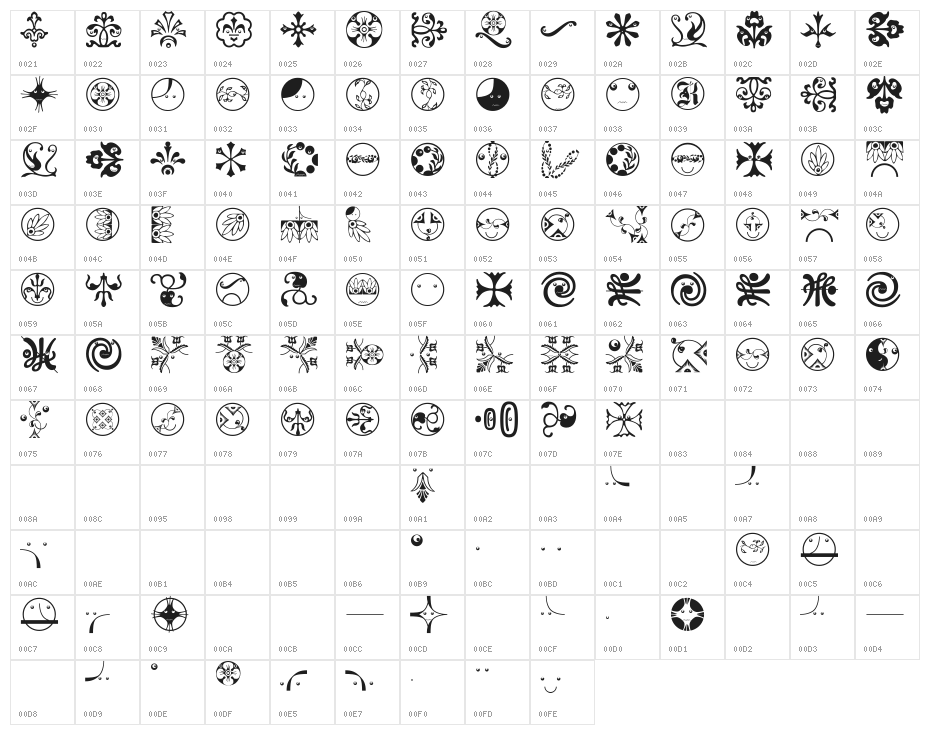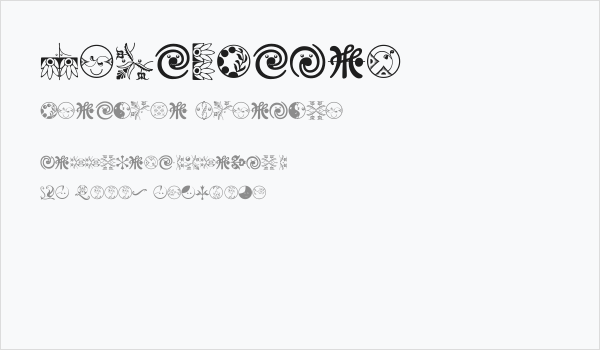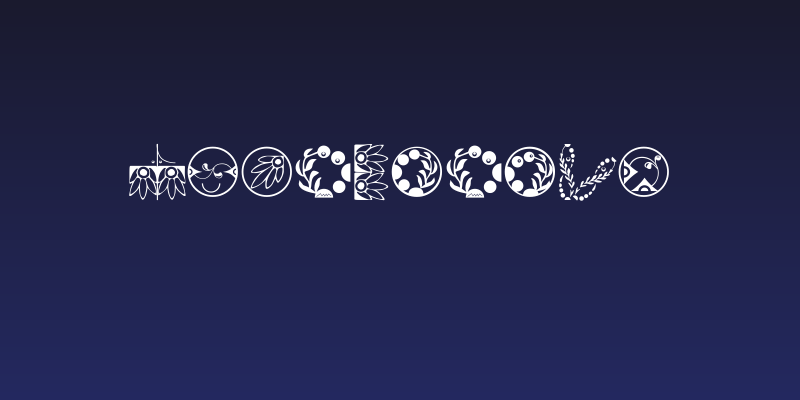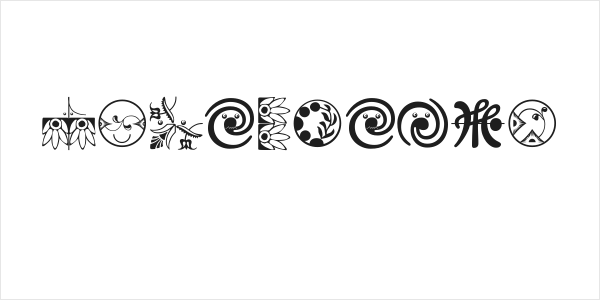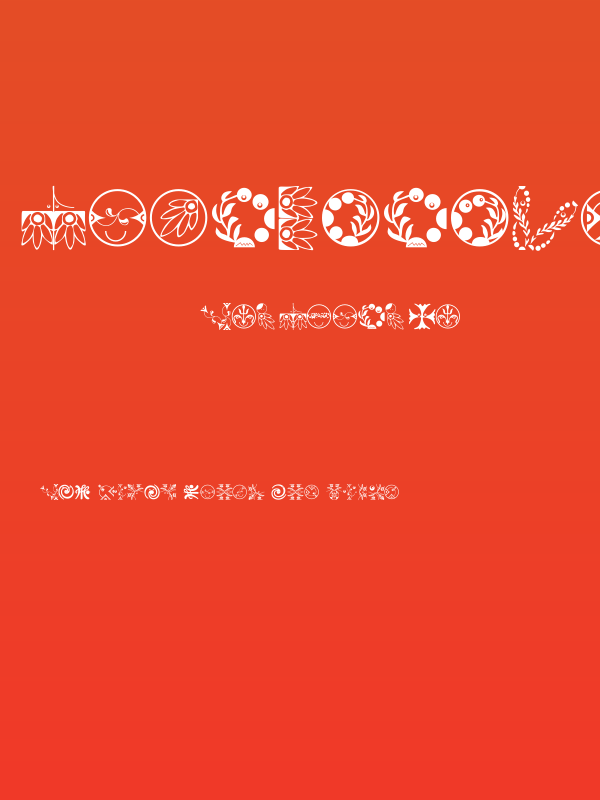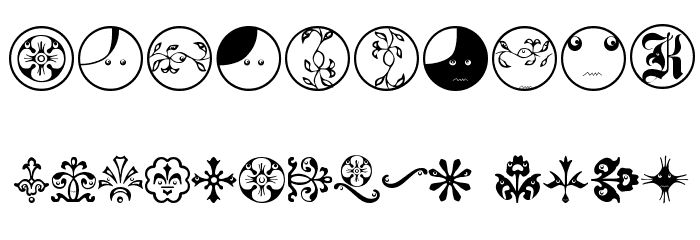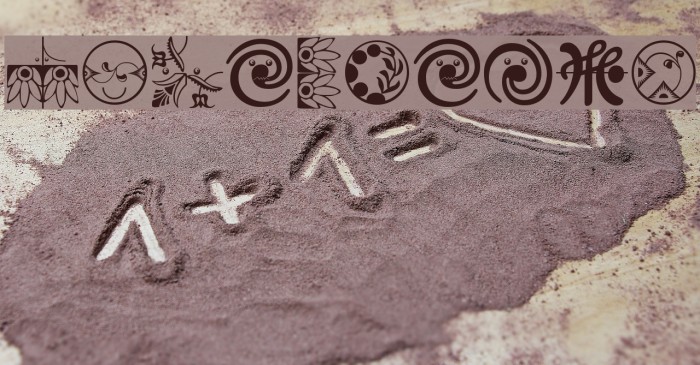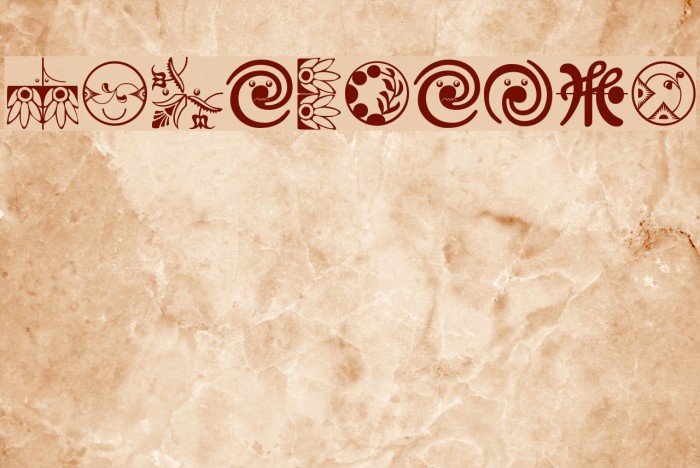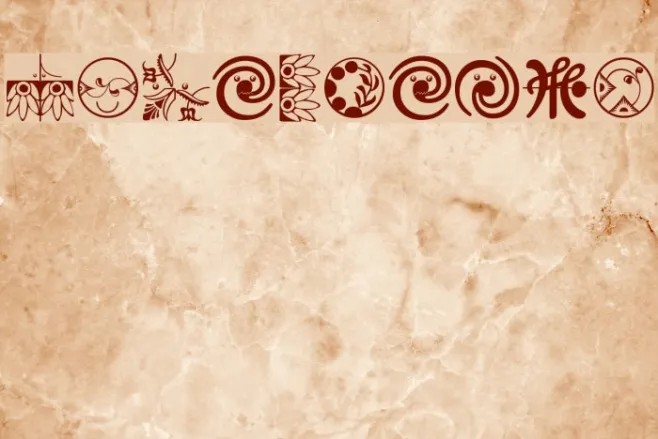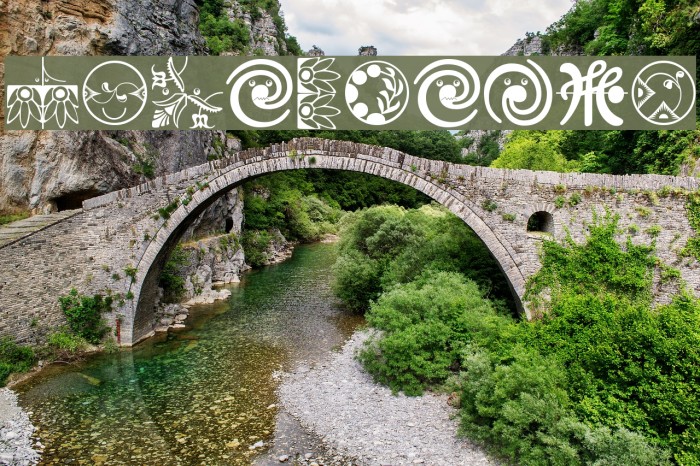
OrnaMFaces Font
OrnaMFaces Description
A highly decorative and ornamental dingbat font featuring intricate floral, botanical, abstract, and whimsical motifs enclosed in circles or as standalone glyphs. The designs vary from playful faces to elaborate swirls and flourishes, with a mix of thick and thin strokes, and a strong emphasis on visual embellishment.
| Overall Style | Decorative, Whimsical, Ornamental |
| Use Case | Borders, Dividers, Decorative elements, Logos, Invitations |
| Proposed Projects | Invitations, greeting cards, decorative borders, scrapbooking, branding, packaging, and artistic projects. |